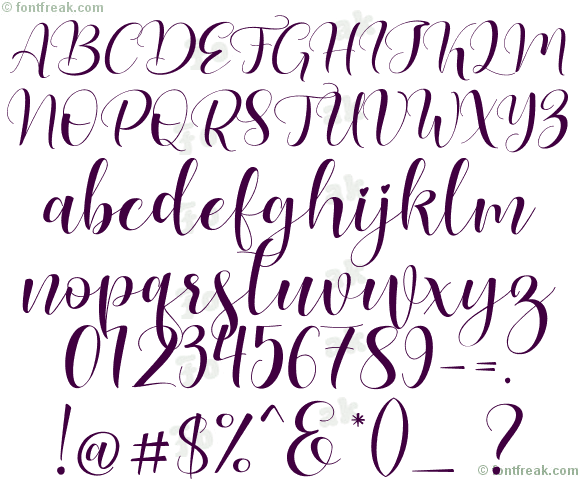
Lovea
The Lovea font, created by Syaf Rizal in 2018, is a stunning script typeface that beautifully captures the essence of elegance and romance. This font is characterized by its fluid strokes and graceful curves, making it a perfect choice for designs that aim to convey warmth and affection. The stroke weight is delicately balanced, providing a pleasing contrast that enhances readability while maintaining a stylish appearance. The spacing is thoughtfully arranged to ensure legibility, even in longer texts.
Lovea font is particularly well-suited for a variety of special occasions and creative projects. It shines in wedding invitations, where its romantic flair can set the tone for a memorable event. Additionally, it makes a striking choice for love letters or heartfelt messages, allowing the writer’s emotions to be beautifully expressed. The font can also be utilized in restaurant menus, adding a touch of sophistication to the dining experience, and in branding materials for small businesses targeting a romantic or artistic clientele. Graphic designers and content creators will find Lovea an invaluable asset, as its unique style can elevate any project.
The target audience for this font includes graphic designers, small business owners, and anyone looking to infuse their work with a sense of charm and elegance. By offering a free download of the Lovea font, Syaf Rizal has made it accessible to a broad range of creatives who wish to enhance their visual communications.
In conclusion, Lovea stands out not only for its aesthetic appeal but also for its versatility across different applications. Its elegant script embodies the spirit of love and creativity, making it an essential addition to any designer's toolkit. Whether you're crafting invitations or branding materials, Lovea font free download allows you to bring a touch of grace to your designs.